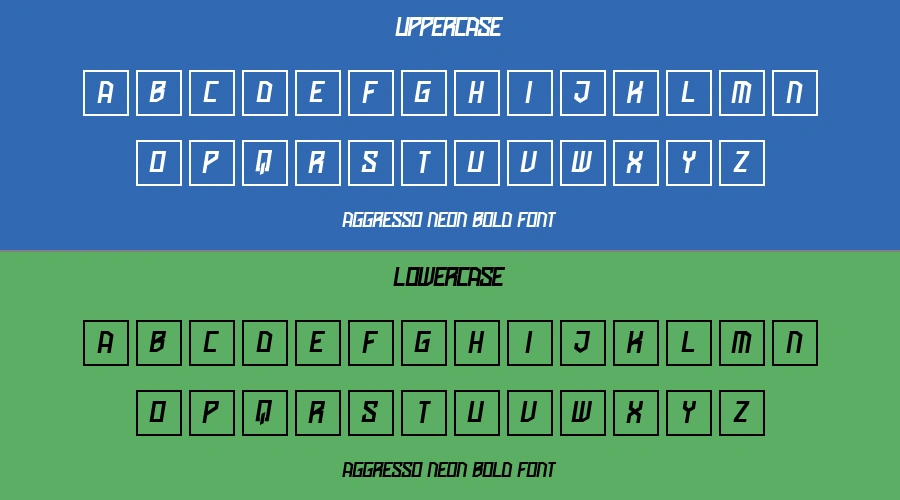
About Aggresso Neon Bold Font
Aggresso Neon Bold Font embodies typographic excellence through its masterful combination of bold expressions and functionality. Created for advertising campaigns, this typeface delivers exceptional originality and aesthetic refinement across all applications. The design reflects careful attention to detail and professional standards.
Advanced capabilities include distinctive engineered curves and versatile swash characters, giving designers creative control. When used in footnotes, Aggresso Neon Bold Font exhibits remarkable detail preservation. The harmonious balance between contrast level and design lineage sets this typeface apart.